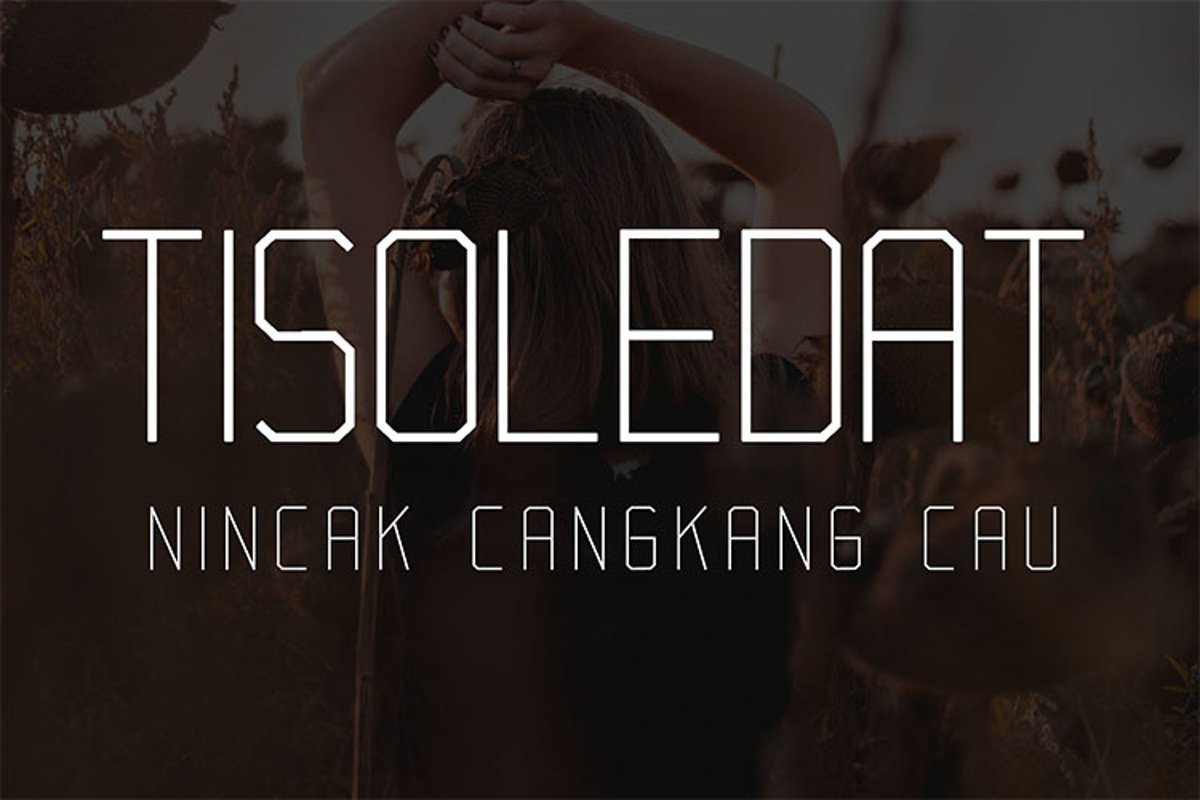
Tisoledat
Tisoledat is a fancy and contemporary sans serif font. It will look
particularly adept when used in logos, branding, packaging design, and
much more. This masterfully designed font is a true must-have.